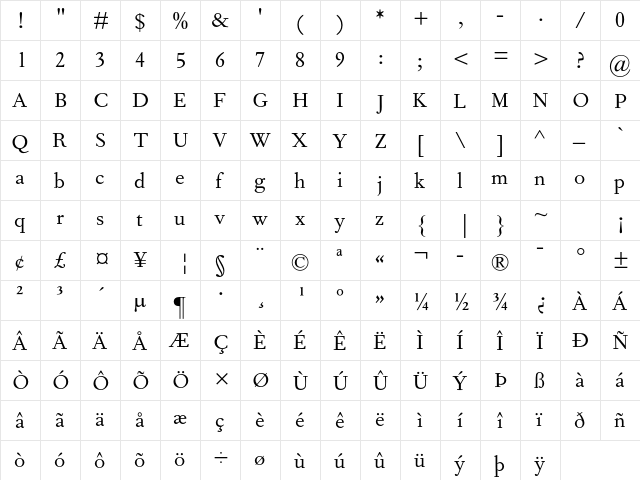
Fournier MT Std Regular
| Designer | Pierre Simon Fournier |
Design Context for Fournier MT Std Typeface
Fournier MT Std offers clean, dependable letterforms without strong stylistic allegiance, making it a practical choice for designers who need flexibility.